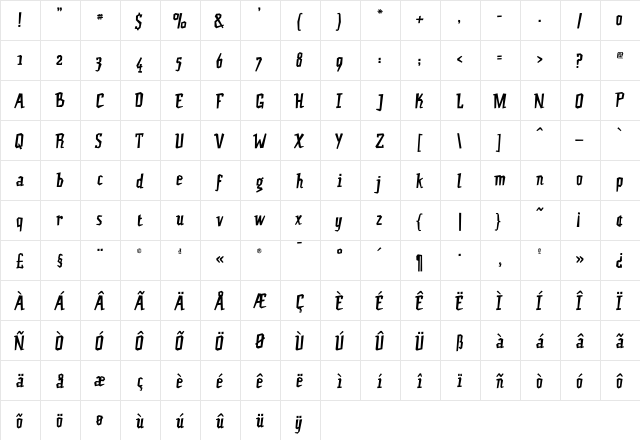
JacqueRegular Regular
Design Context for JacqueRegular Typeface
JacqueRegular takes a measured approach to typography — its balanced proportions and neutral character make it a reliable workhorse for both digital and print work.